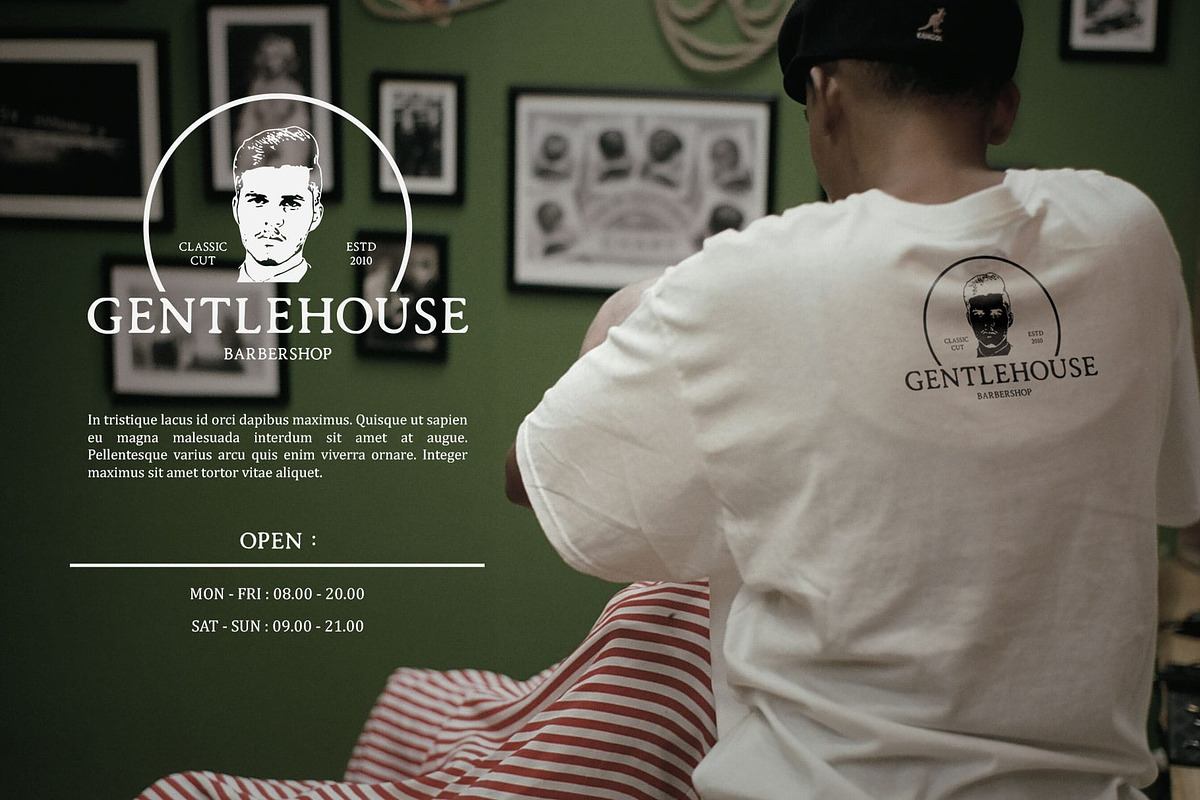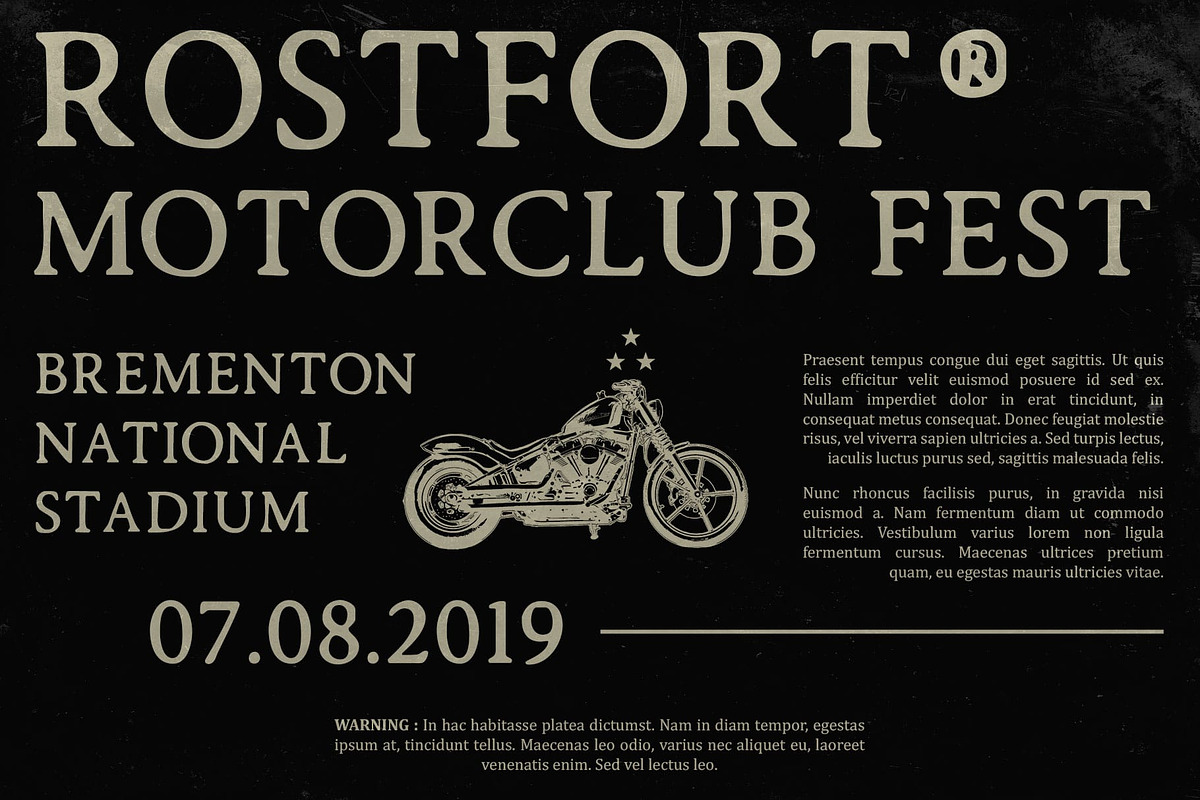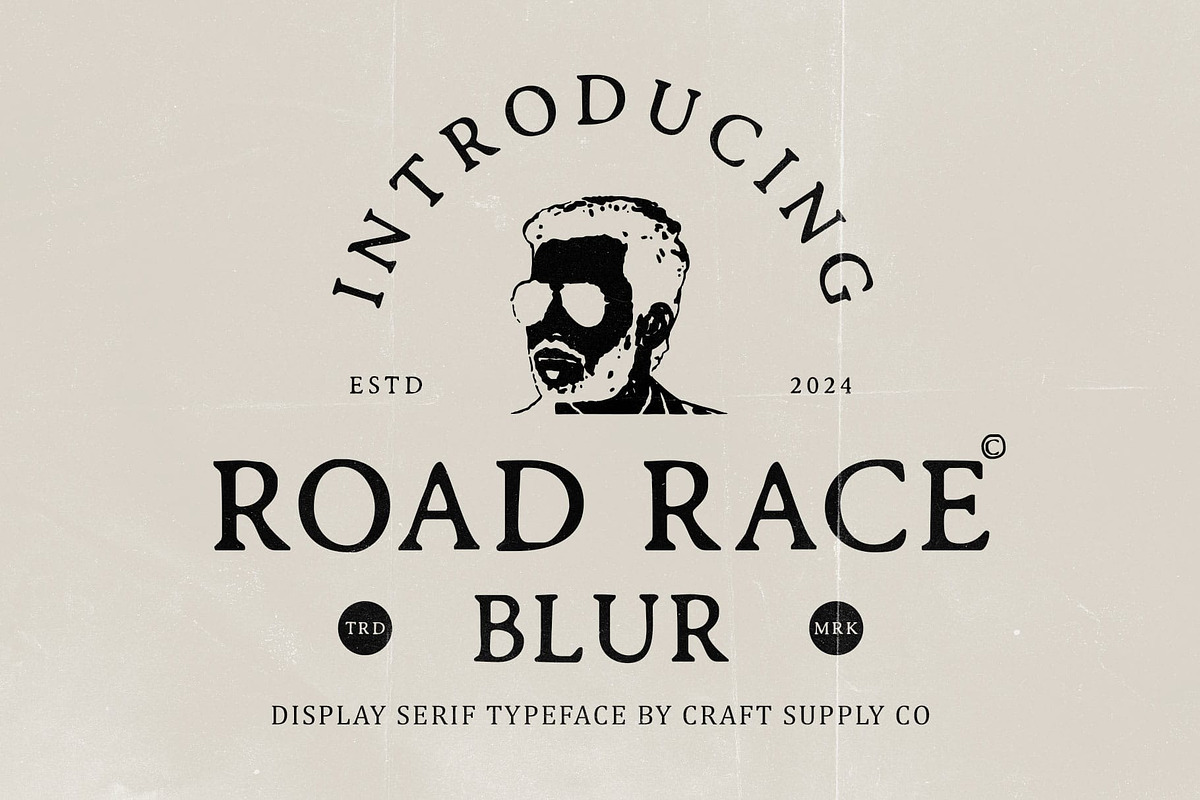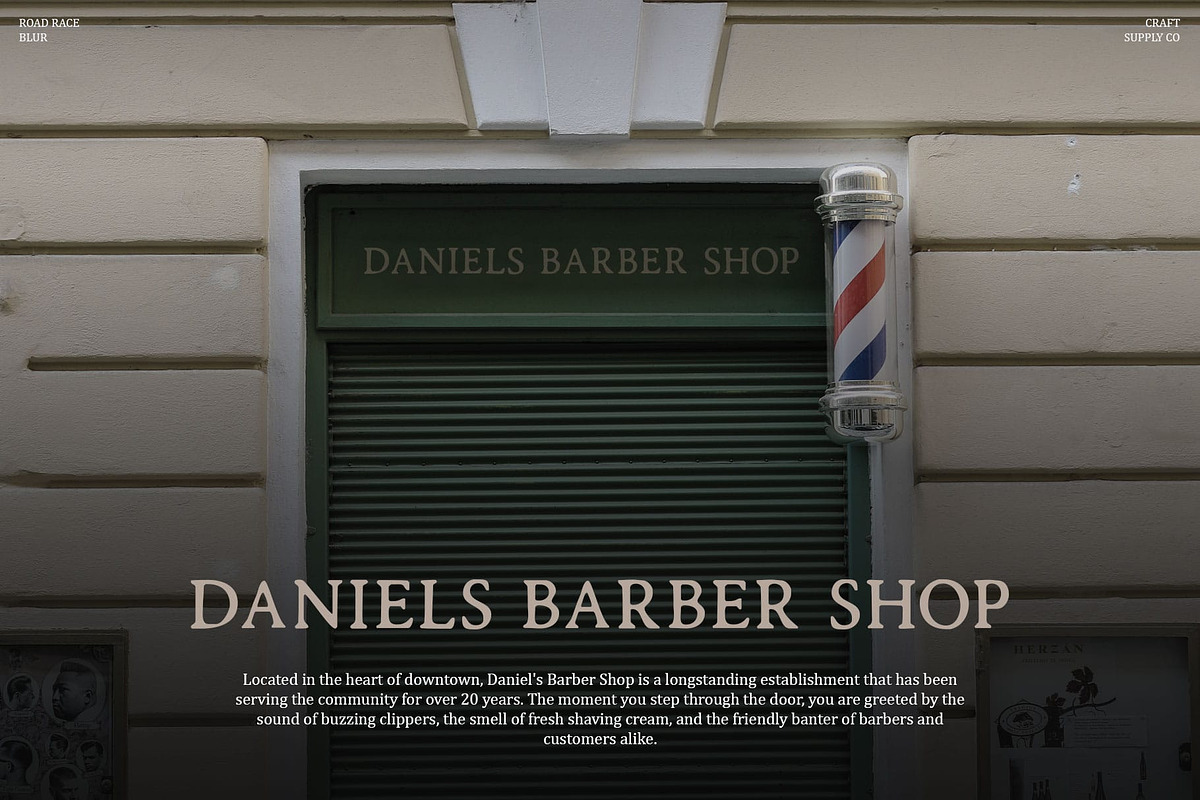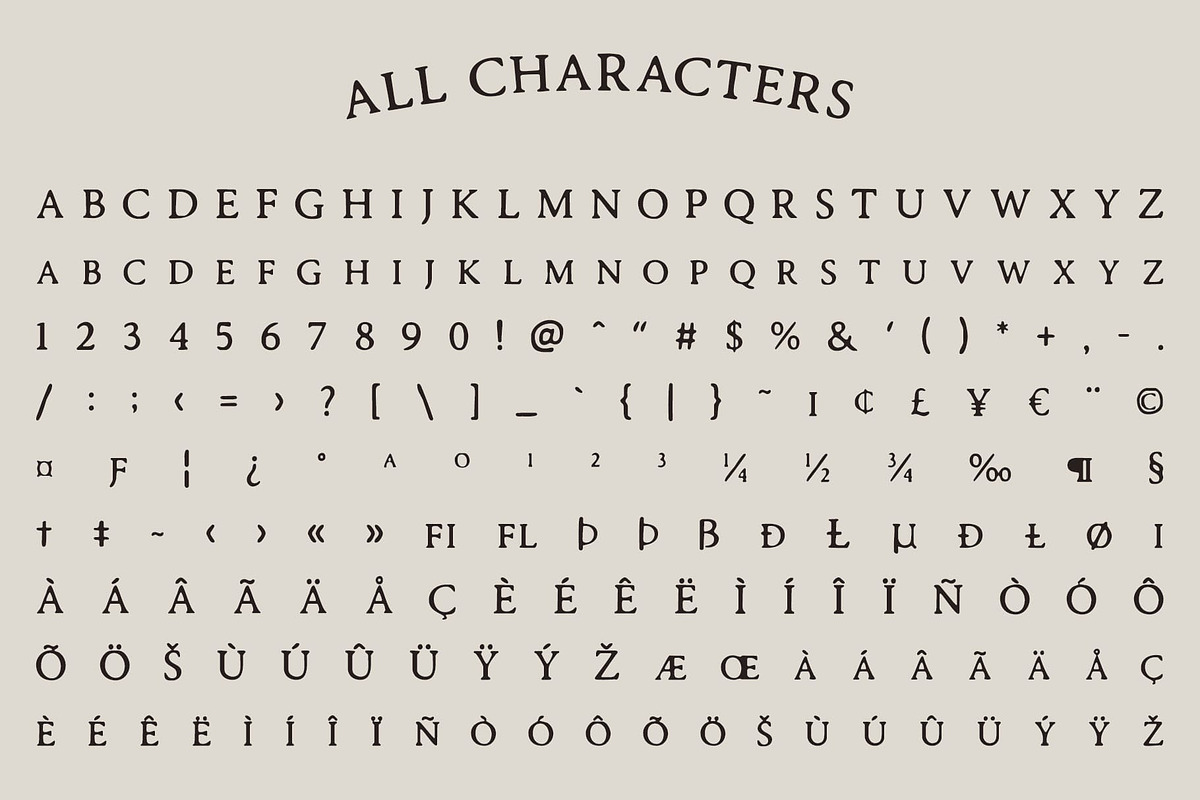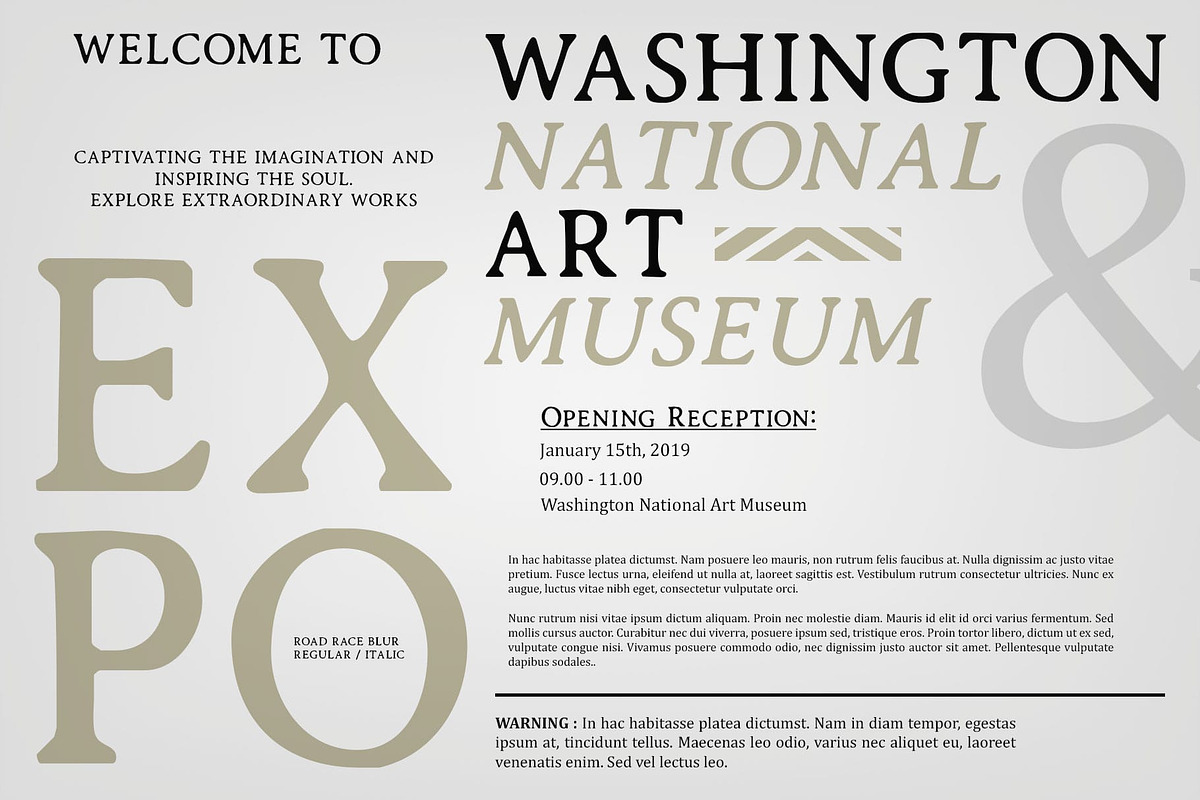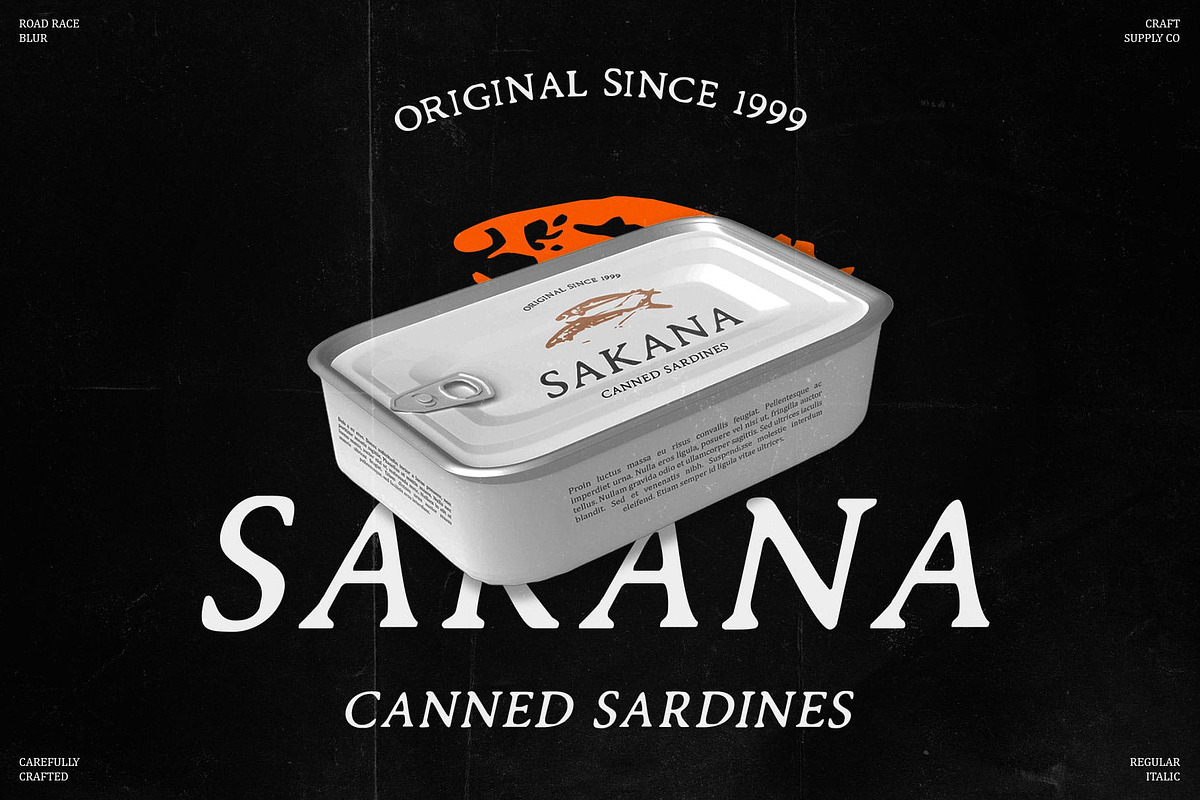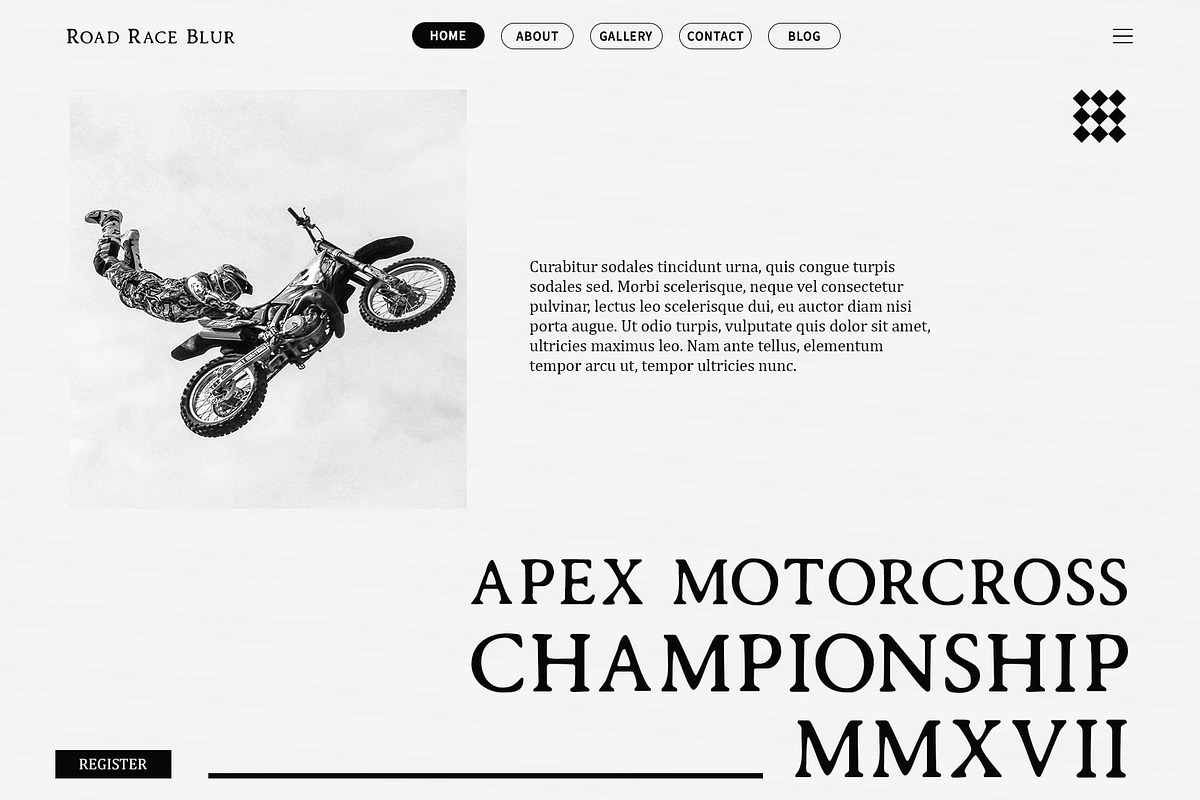
Road Race Blur
Road Race Blur: Modern Serif Font with a Cool Vibe
Enhanced Visual Dimensions with Blur Effect
Road Race Blur is a modern serif font designed to add a cool vibe to contemporary designs. Featuring a blur effect, this font enhances visual dimensions, giving it a dynamic and captivating appearance.
Blend of Elegance and Contemporary Appeal
This font seamlessly blends elegance with captivating contemporary elements. Its sleek lines and sophisticated serif details are complemented by the subtle blur effect, making it ideal for modern design projects that aim to stand out.
Perfect for Modern Design Projects
Ideal for branding, editorial work, and more, Road Race Blur brings a fresh and stylish touch to any design application. Whether used in logos, posters, or digital media, its combination of cool vibes and visual intrigue ensures a modern and memorable aesthetic.
- Road Race Blur Regular
- Road Race Blur Italic